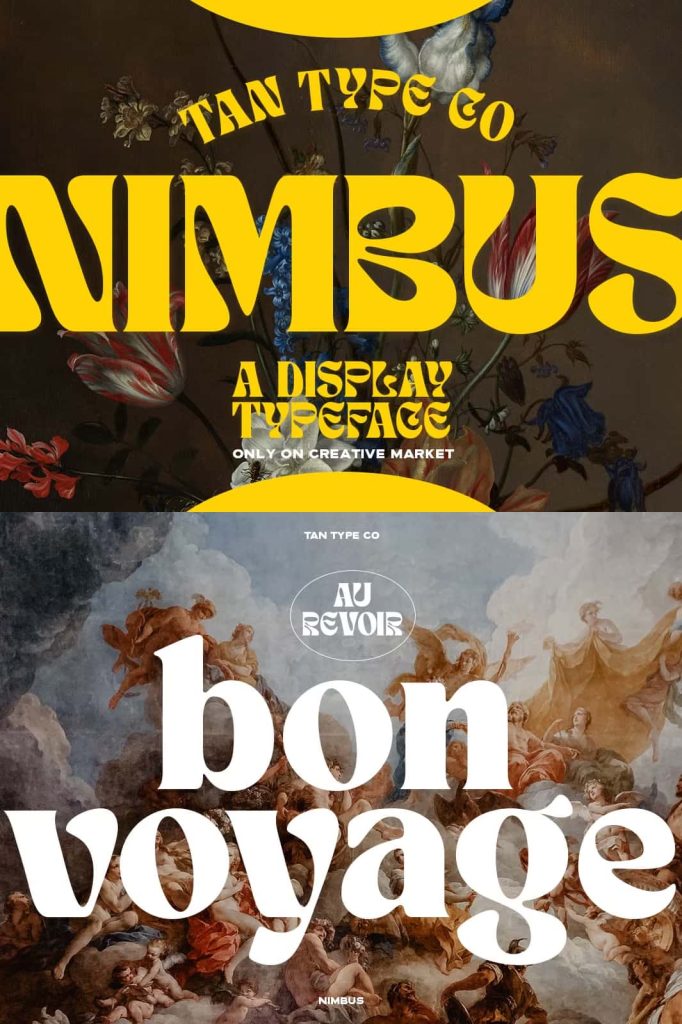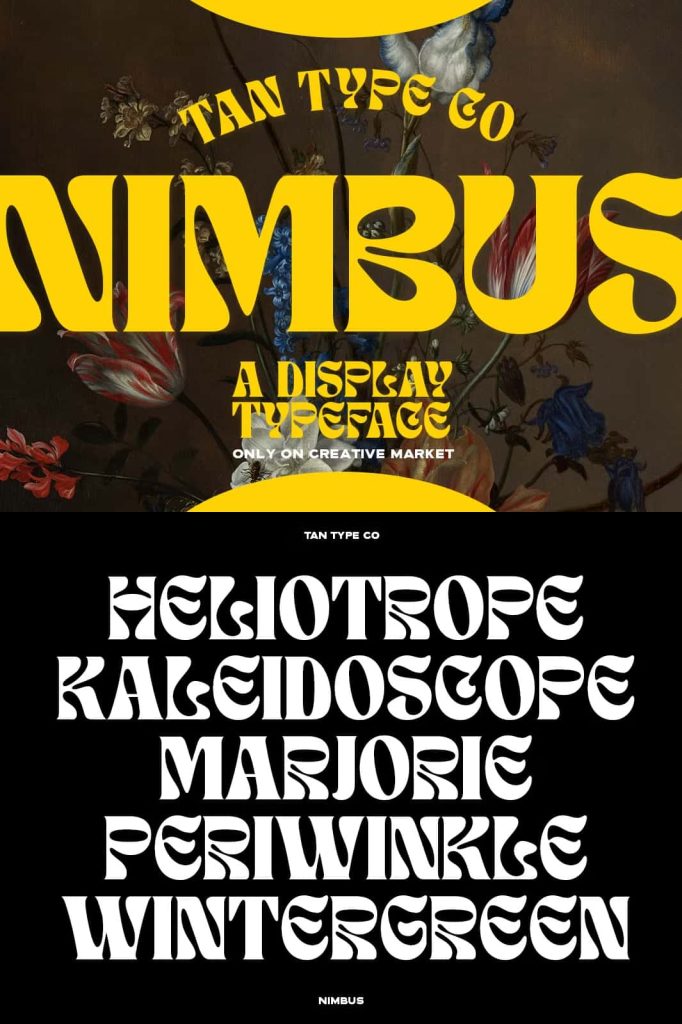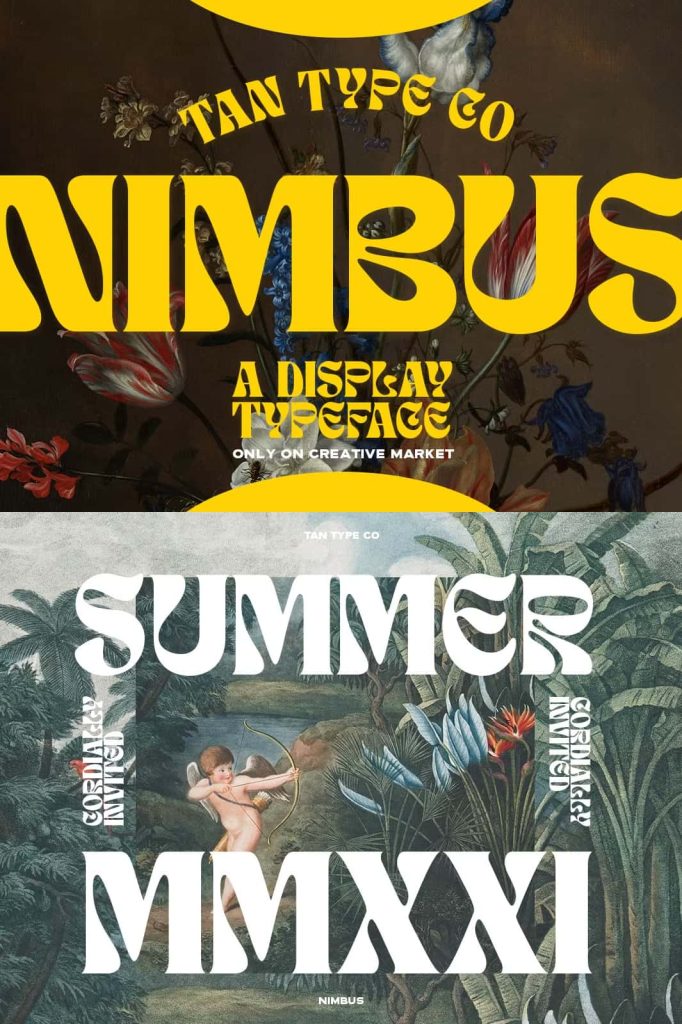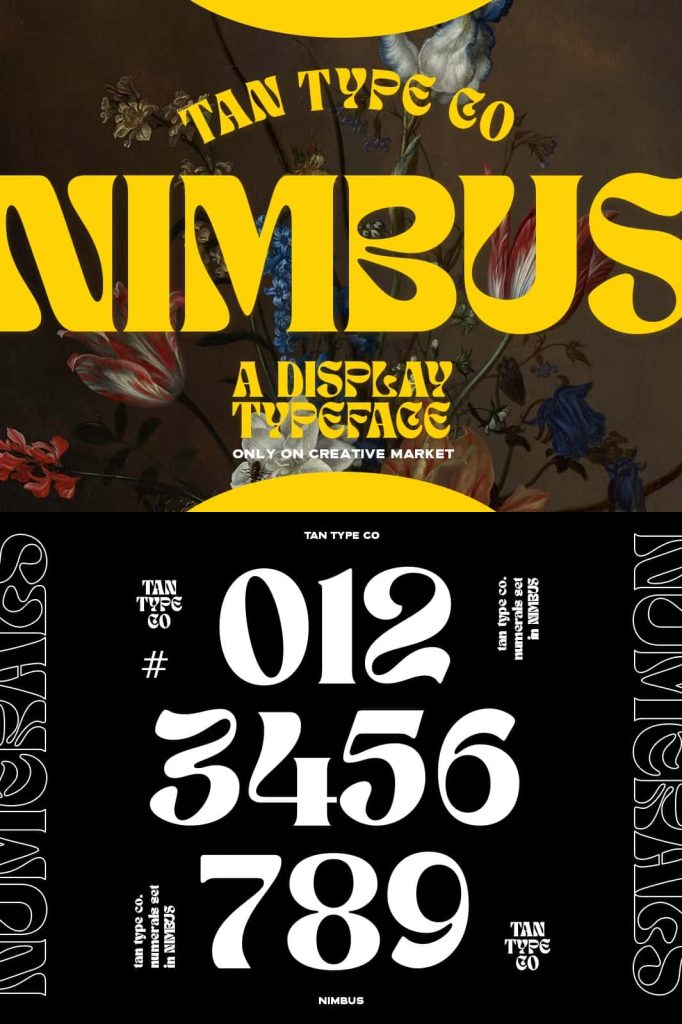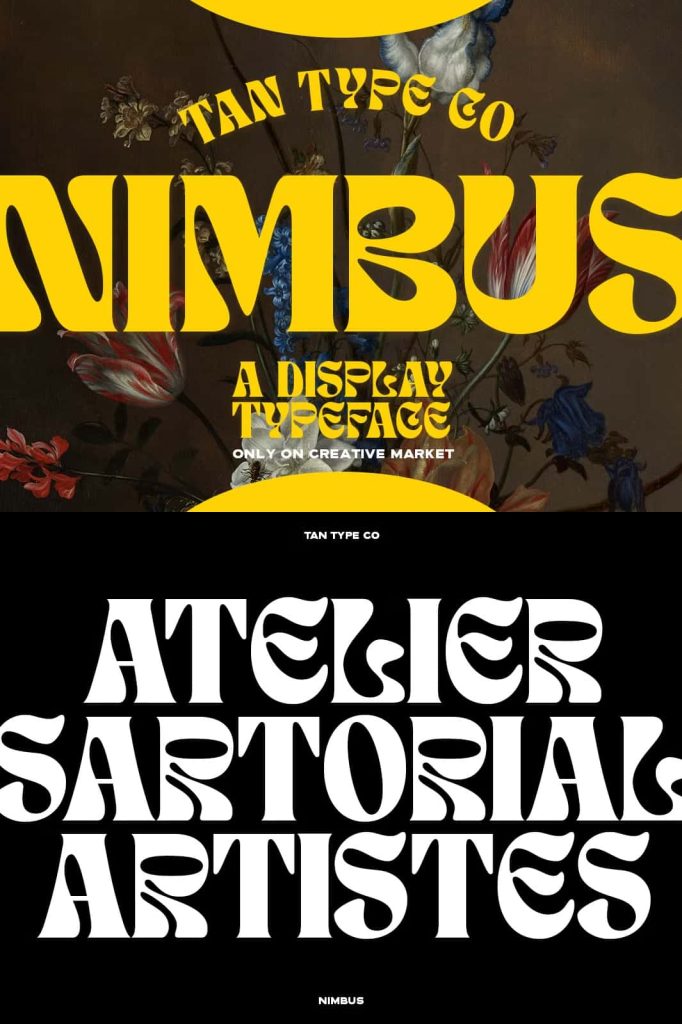
TAN – NIMBUS Typeface: A Bold, Psychedelic, and Playful Retro Font for Creative Design
TAN – NIMBUS is a psychedelic-inspired typeface crafted to bring energy, nostalgia, and excitement into any design project. With its striking retro personality and bold artistic curves, this typeface instantly stands out. It delivers a fun, eye-catching presence that captures attention and transforms ordinary layouts into vibrant visual statements. Whether you aim to energize posters, build unique branding, or create expressive digital content, TAN – NIMBUS brings the perfect touch of bold creativity.
Explore the Psychedelic Inspiration Behind TAN – NIMBUS
The spirit of TAN – NIMBUS comes from the psychedelic art movement, known for its swirling forms, bold contrasts, and experimental letter shapes. This typeface embraces those expressive design elements and modernizes them into a clean, usable, and impactful font. Every character features a playful rhythm and a sense of visual motion, making the typeface feel lively and dynamic. It channels retro aesthetics from the late 60s and 70s while ensuring clarity and usability for today’s creative needs.
Designers searching for a typeface that conveys personality, imagination, and retro appeal will immediately appreciate how TAN – NIMBUS elevates their work. It offers more than just stylish letters; it introduces a complete visual mood that encourages experimentation and artistic expression.
Why TAN – NIMBUS Stands Out in Modern Design
While many retro fonts exist, TAN – NIMBUS distinguishes itself through its boldness and playful structure. The typeface refuses to fade into the background. Its letterforms encourage designers to take risks, push boundaries, and infuse their work with joy. Because of its dramatic style, it works especially well when used as a focal point in designs that require strong personality.
Whether you are building a headline, designing merchandise, creating a promotional poster, or shaping a brand identity with retro flair, this typeface provides an unforgettable look. Its visual strength ensures readability while maintaining that signature psychedelic charm.
Key Features of TAN – NIMBUS Typeface
- Psychedelic-inspired design with dynamic curves
- Bold, retro personality that demands attention
- Playful letterforms that add energy and movement
- Ideal for headlines, posters, branding, and creative layouts
- Perfect for projects that need a fun, lively, expressive visual tone
Perfect Uses for TAN – NIMBUS in Creative Projects
TAN – NIMBUS shines the most when used in bold applications. Its distinctive style works beautifully for large-scale text where the expressive shapes can be fully appreciated. Use it to create striking display titles, promotional posters, album covers, event flyers, and logo designs that need a retro touch. The font adds instant personality to social media graphics and digital content, making every post or banner feel more dynamic and engaging.
For branding, TAN – NIMBUS can help establish a memorable identity. Whether you aim for a vintage vibe, a playful edge, or a bold artistic statement, this typeface delivers the visual impact needed to leave a lasting impression. It encourages designers to think creatively and break away from conventional typography.
Add Fun, Energy, and Retro Magic to Your Work with TAN – NIMBUS
TAN – NIMBUS is more than a typeface; it is a creative tool that inspires movement, emotion, and imagination. By incorporating it into your designs, you instantly elevate the energy and artistic value of your project. Its psychedelic influence, bold structure, and playful style work together to create an unforgettable visual experience.
If you want to infuse your designs with character, creativity, and retro charm, TAN – NIMBUS is the perfect choice. Let this vibrant typeface guide your creativity and bring a dose of fun into every design project you create.